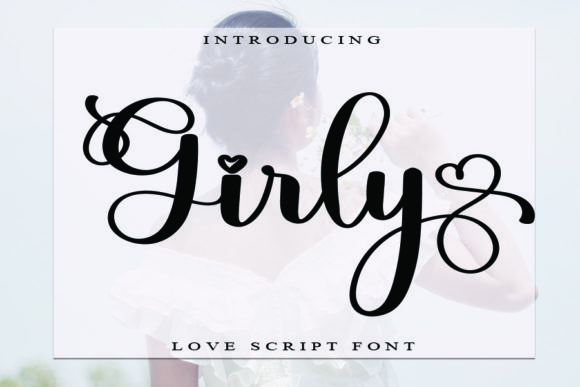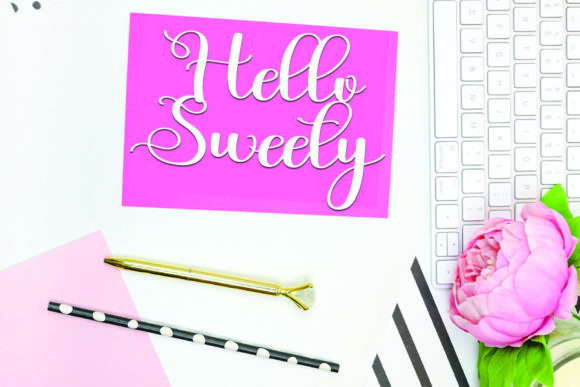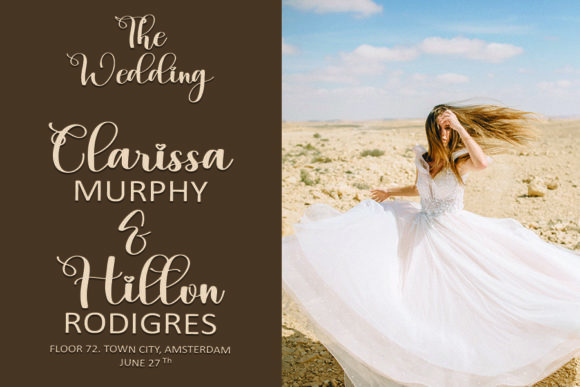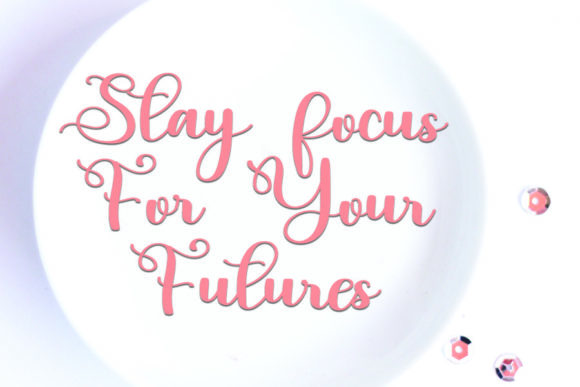
Girly Font
About Girly Font
“Girly” emerges as a stylish handwritten font, resonating with a contemporary atmosphere while embodying impeccable form. Inspired by the enduring elegance of timeless classic calligraphy, it seamlessly marries tradition with modernity. With a delicate balance between thickness and fineness, and a varied aesthetic, this font was meticulously designed to elevate the beauty of your projects to new heights.
Imagine “Girly” as a brush dipped in elegance, gracefully painting your designs with finesse and charm. Its contemporary flair adds a breath of fresh air to the classic calligraphic style, resulting in a visual masterpiece that captures attention. As you integrate this font into your projects, you’ll embark on a journey where your ideas evolve into captivating visual stories.
The allure of “Girly” extends beyond its visual charm; it embodies a sense of timeless sophistication. Its handwritten strokes evoke authenticity, transforming your designs into more than just visuals – they become reflections of artistry and craftsmanship. Each character contributes to the exquisite canvas of your creative vision.
“Girly” emerges as an essential tool in your design repertoire. Its versatile nature allows it to seamlessly blend with a variety of styles, themes, and purposes. Whether for branding, headlines, invitations, or digital graphics, this font elevates the impact of your message.
In a world where aesthetics and substance intertwine, “Girly” becomes your vehicle for crafting designs that resonate deeply. Let its stylish strokes be the brushstrokes that enhance your creations, infusing them with a touch of contemporary elegance. Embrace the artistic spirit of “Girly” and witness how it transforms your projects into captivating showcases of modern calligraphic artistry, leaving an indelible mark on all who encounter them.